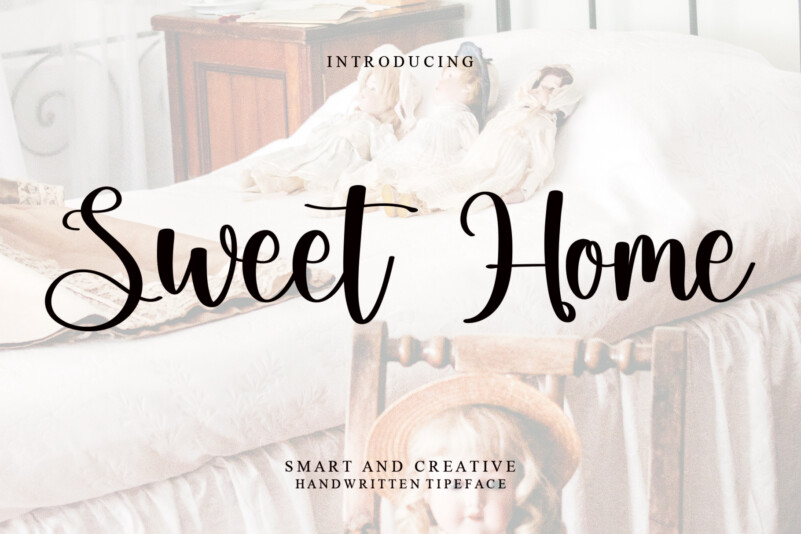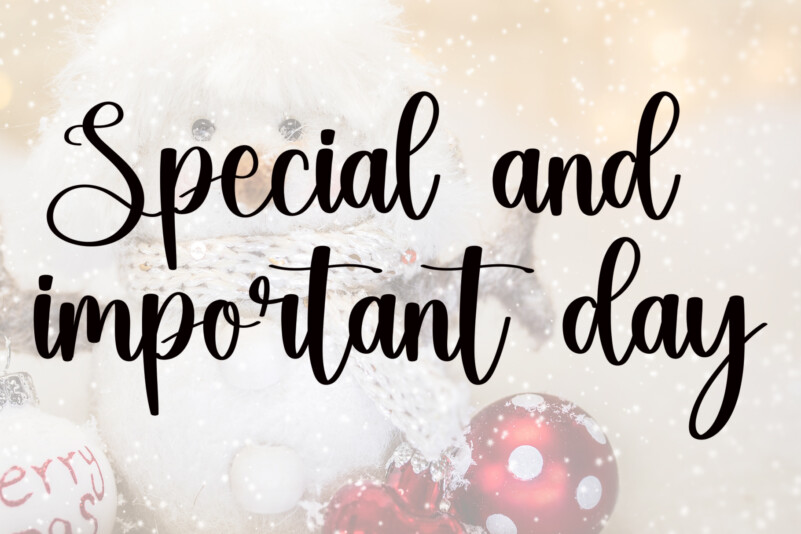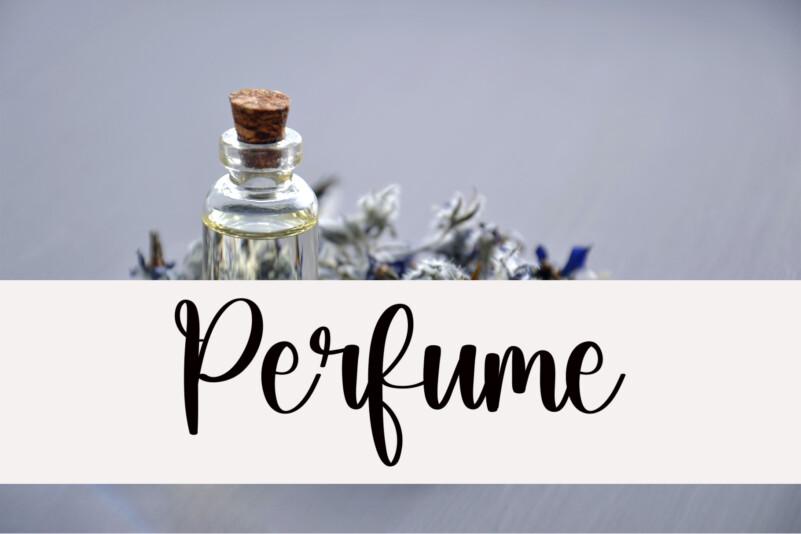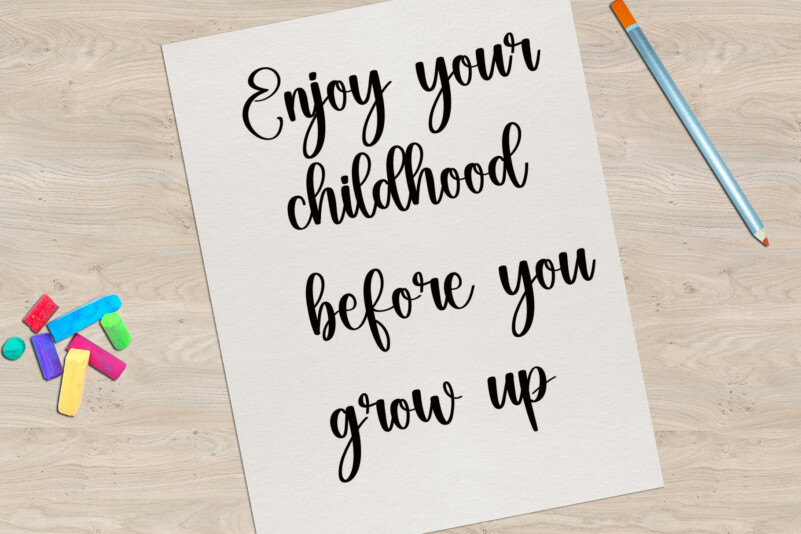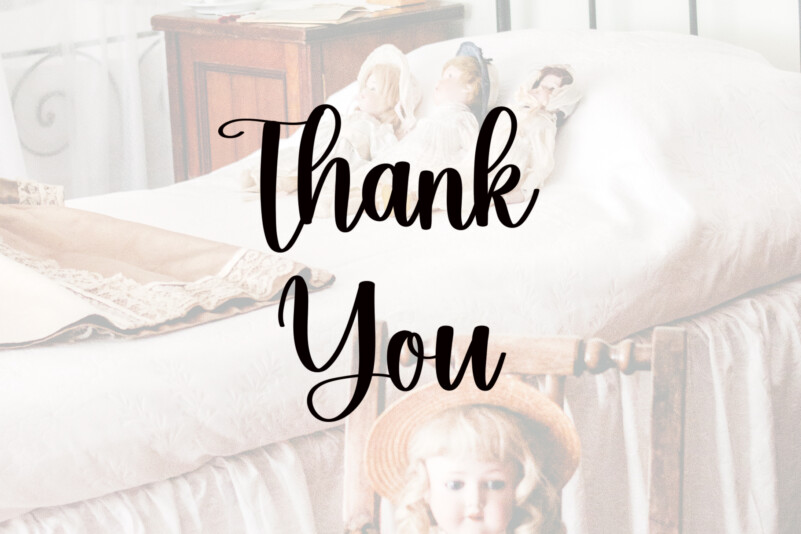
Sweet Home Typeface
Sweet Home Typeface is an elegant and bold display font, carefully handcrafted to become a true favorite. This font will look outstanding in any context, whether it’s being used on busy backgrounds or as a standalone headline!